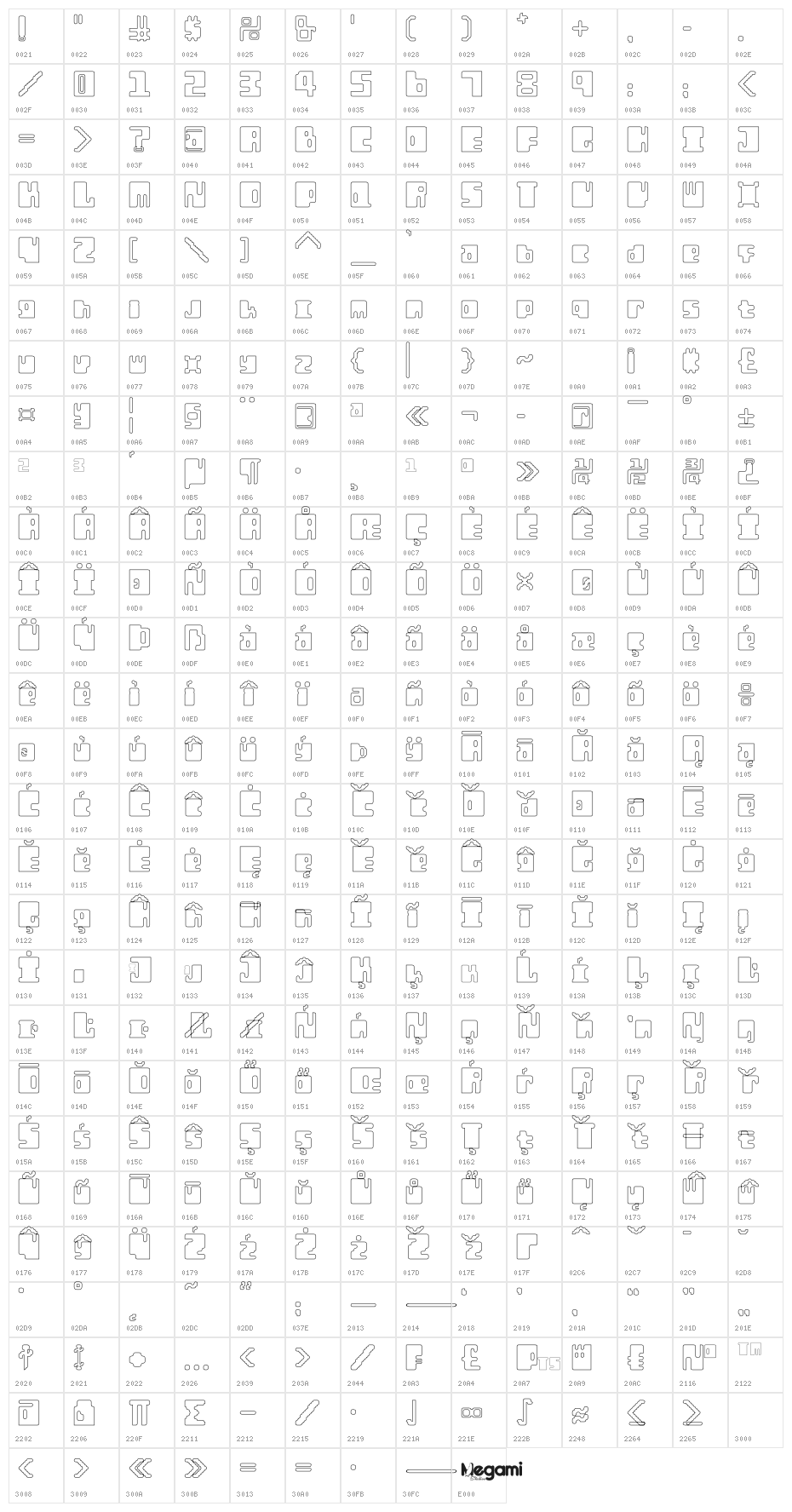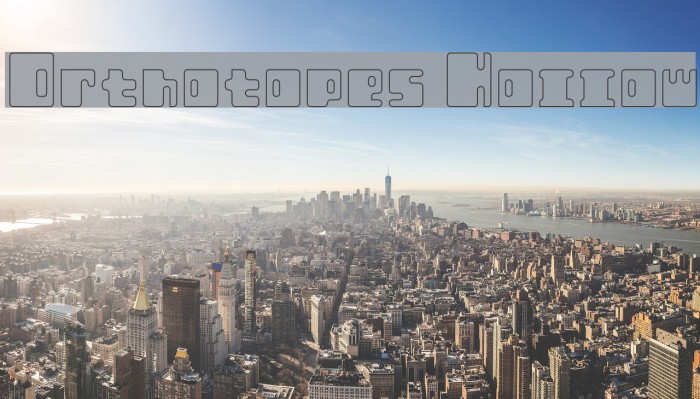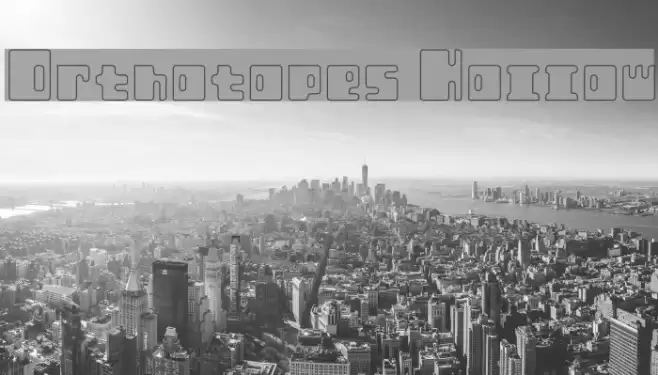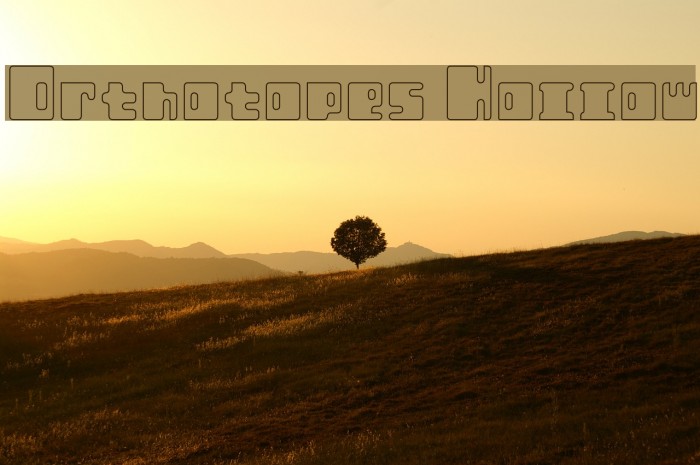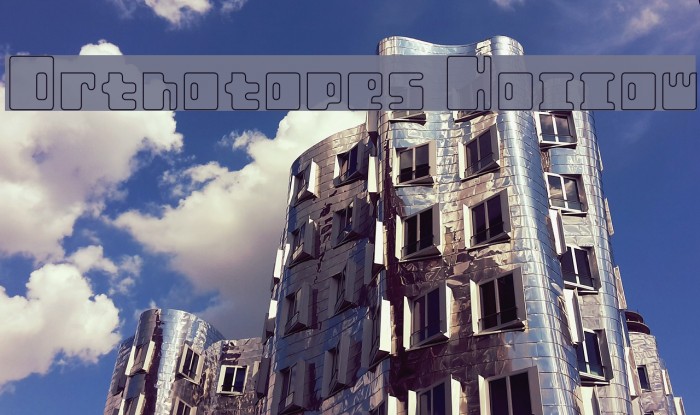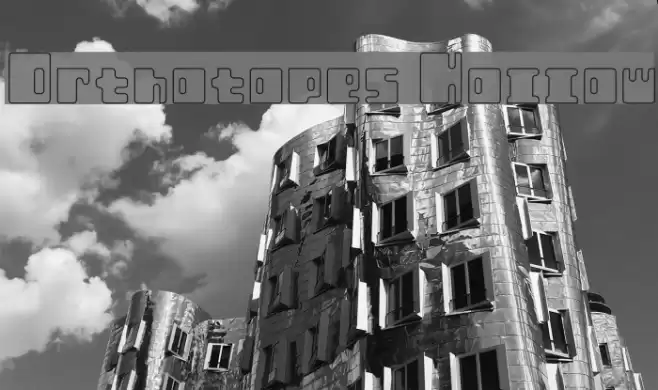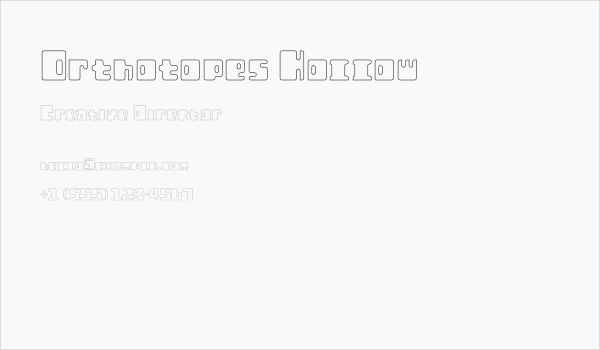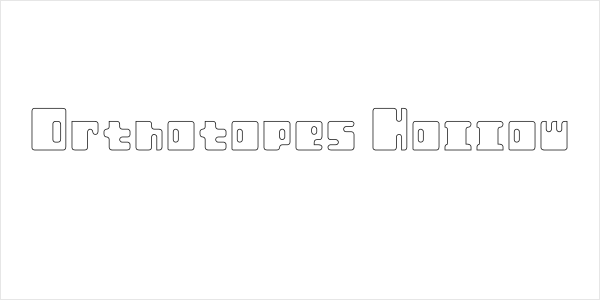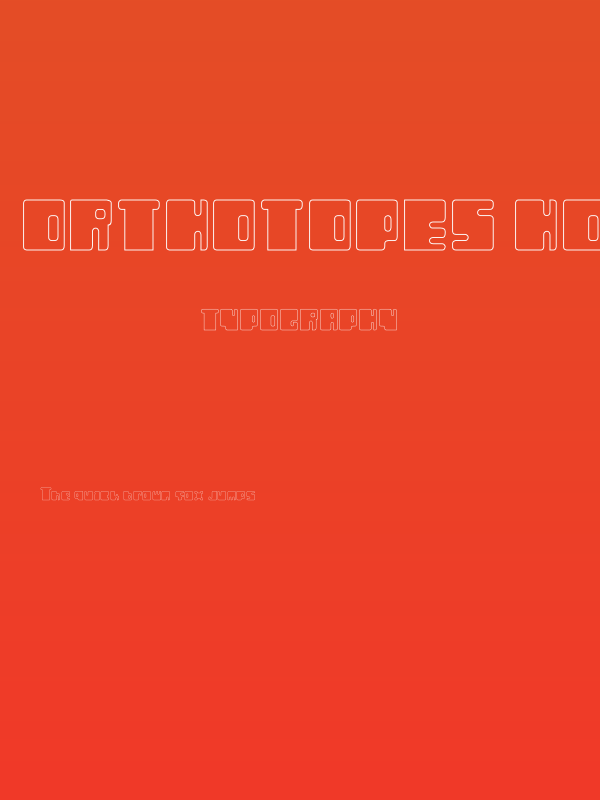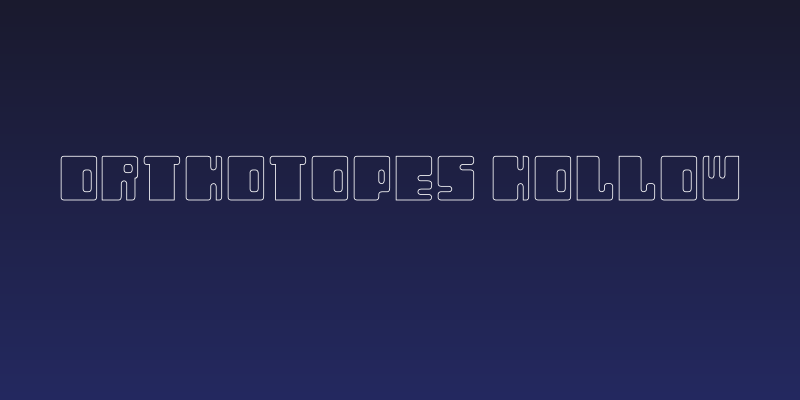
Orthotopes Hollow Font
Orthotopes Hollow Description
This font features a unique hollow design with a geometric and modular appearance. Each character is outlined, creating a hollow effect that gives it a modern and futuristic look. The letters are constructed with straight lines and sharp angles, maintaining a consistent height and width across both uppercase and lowercase characters. The numerals and special characters follow the same design principles, ensuring uniformity throughout the typeface. This font's distinct style makes it stand out, offering a bold visual impact while maintaining readability.
| Proposed Projects | Ideal for digital artwork, futuristic branding, tech-themed posters, and modern advertising campaigns. |